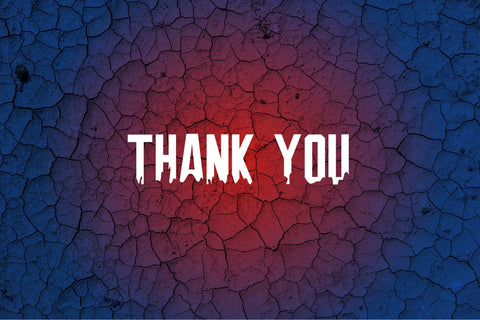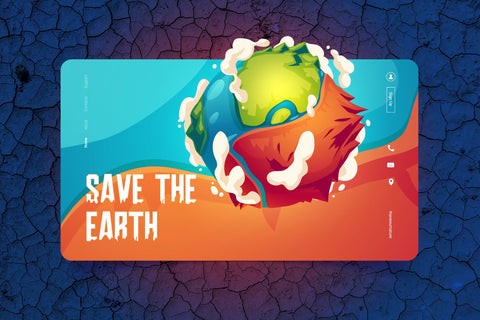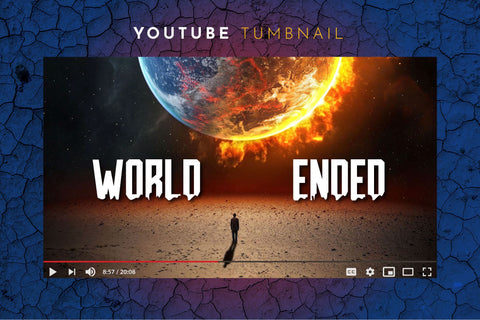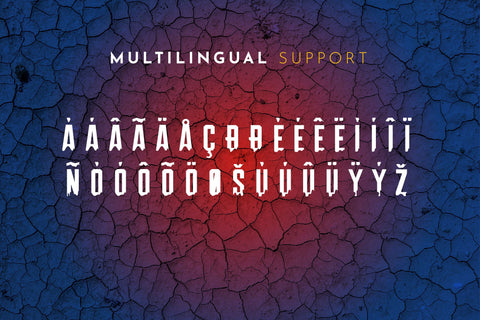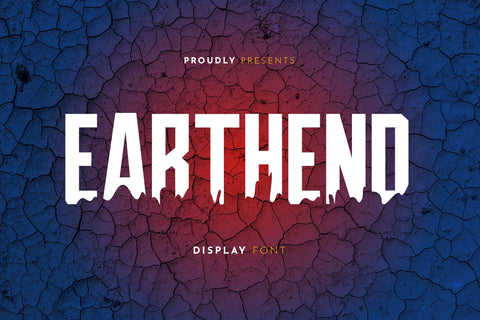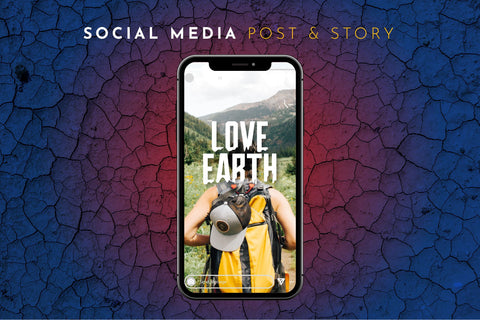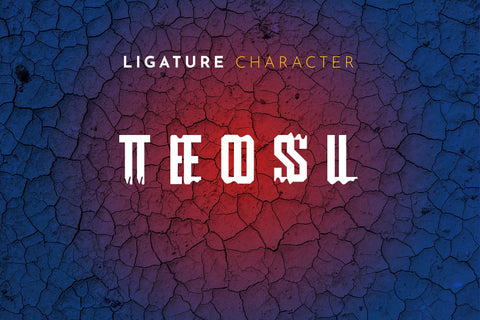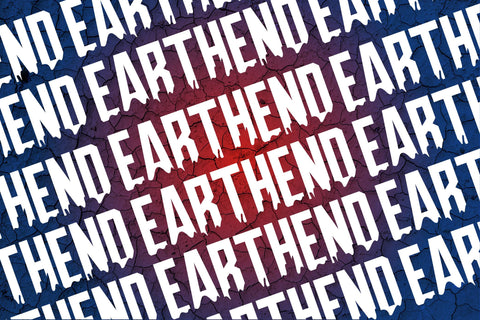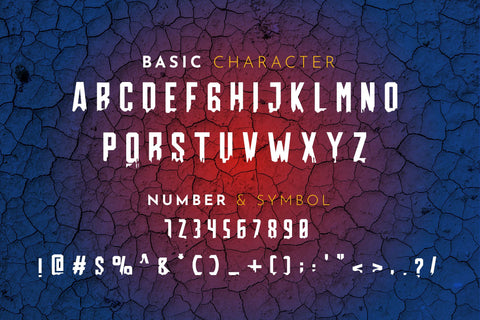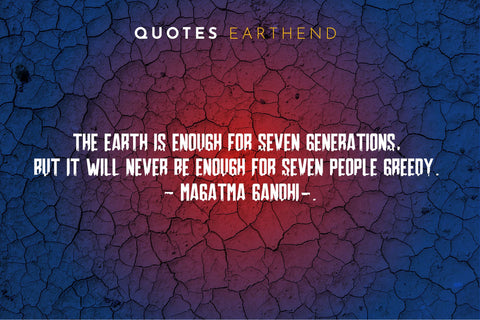
Earthend Display Font
Earthend Display Font is a design font with an elegant style that can enhance the quality of your designs.
Earthend Display Font– This Font is perfect for designs, logos, social media, brands, advertisements, product designs, handwritten quotes, product packaging, headers, posters, merchandise, and other designs.
+ Standard glyph
+Multilingual Support